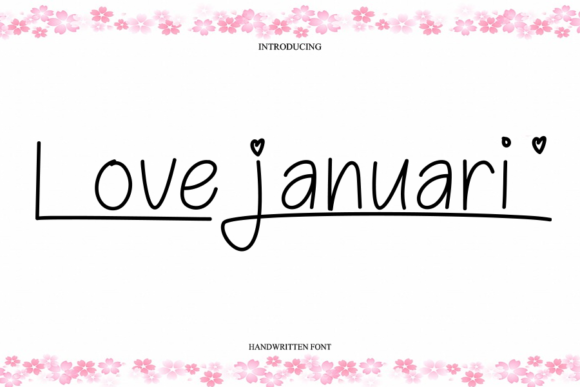
Unleash the Charm of Love Januari: A Script Font That Inspires Elegance and Grace
In the world of typography, Love Januari stands out as a true masterpiece, a script font that exudes elegance and grace. Its thin, delicate lines dance across the page like a love letter written with care, evoking a sense of romance and sophistication. With its charming appearance, Love Januari is the perfect choice for any design project that demands a touch of allure.
Crafted with meticulous attention to detail by the talented HENGKIPRAMUDI, Love Januari captures the essence of love in every curve and stroke. Its flowing lines mimic the graceful movements of a ballerina, creating a mesmerizing visual experience. Whether you're designing wedding invitations, love-themed cards, or any project that calls for a touch of romance, Love Januari is your perfect companion.
Beyond its aesthetic beauty, Love Januari is also incredibly versatile, adapting effortlessly to a wide range of design styles. Its delicate nature makes it ideal for creating logos, branding elements, and social media graphics that exude sophistication and charm. The font's thin lines also make it a wonderful choice for creating elegant watermarks, giving your designs a subtle yet distinctive touch of elegance.
But what truly sets Love Januari apart is its ability to bring your words to life. Its charming appearance adds a personal touch to any text, making it perfect for creating heartfelt messages, love letters, or any written content that aims to connect with your audience on a deeper level. With Love Januari, your words will dance off the page, captivating readers and leaving them enchanted by your message.